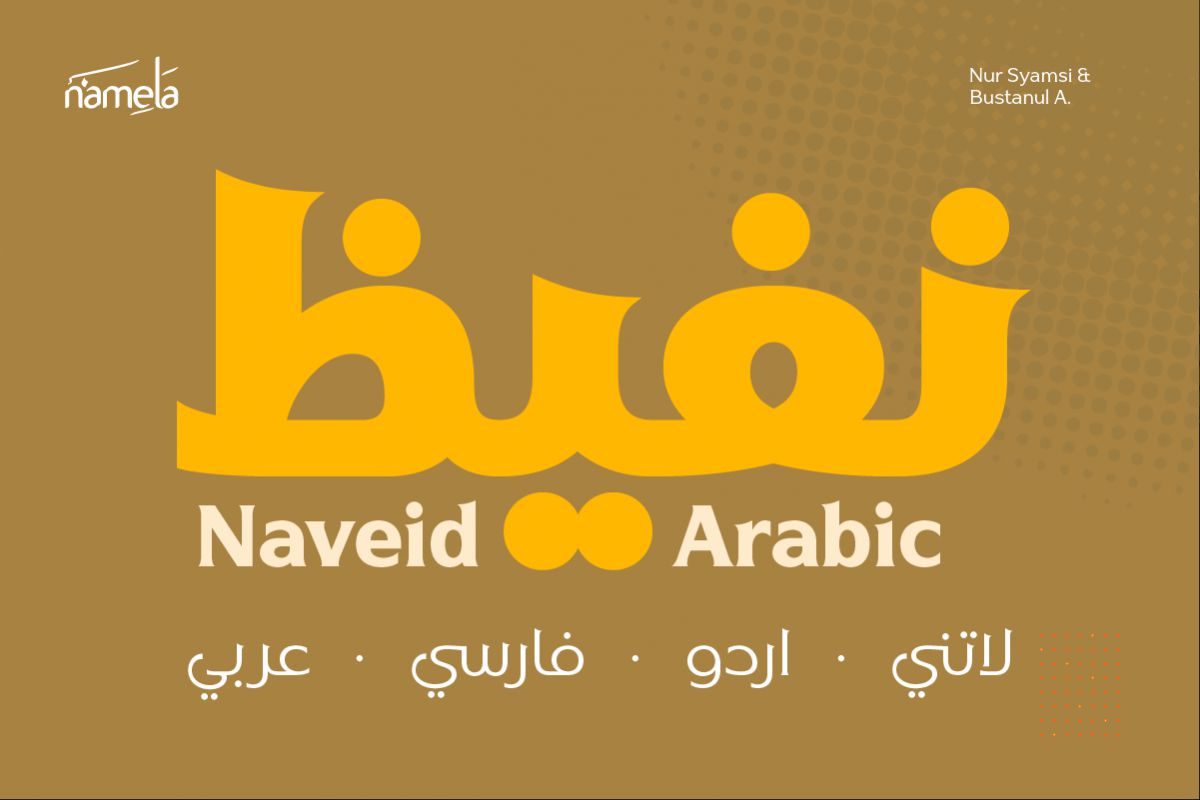
Naveid Arabic Extra Bold
Naveid Arabic Font - A Contemporary Kufic Style Typeface for Branding & Logos A logo speaks before anyone reads a word, and in Arabic script, the typeface behind that logo carries enormous cultural and visual weight. Naveid Arabic is a contemporary Kufic-inspired display font that meets that responsibility head-on: authoritative, elegant, and immediately distinctive. Built for branding, logo design, and ePub, it brings the prestige of classical Arabic calligraphy into a modern design vocabular